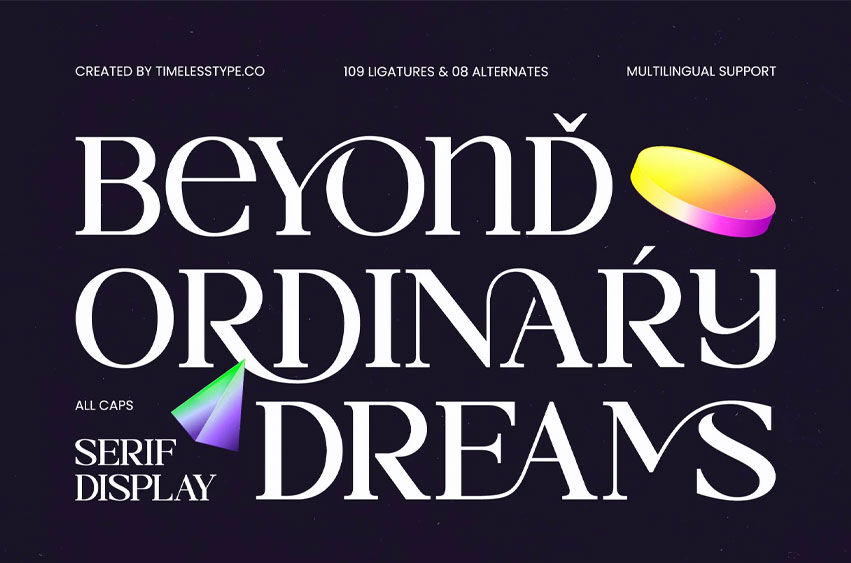
Beyond Ordinary Font
Beyond Ordinary Font All Caps Serif Display Elevate your design projects to a new standard of elegance with Beyond Ordinary – All Caps Serif Display. This high-contrast serif typeface is meticulously crafted to blend classic sophistication with a modern editorial flair. Its bold strokes and refined curves command attention, making it the definitive choice for designers seeking to create a memorable visual identity that transcends temporary trends and exudes timeless luxury.
Unlocking your full creative potential is effortless with professional tools that prioritize quality and style. Featuring over 109 unique ligatures and 08 stylized alternates, Beyond Ordinary – All Caps Serif Display allows you to create custom-looking typography that feels bespoke and high-end. These dynamic character variations provide the flexibility needed to produce striking headlines and artistic layouts that truly stand out in a crowded digital landscape.